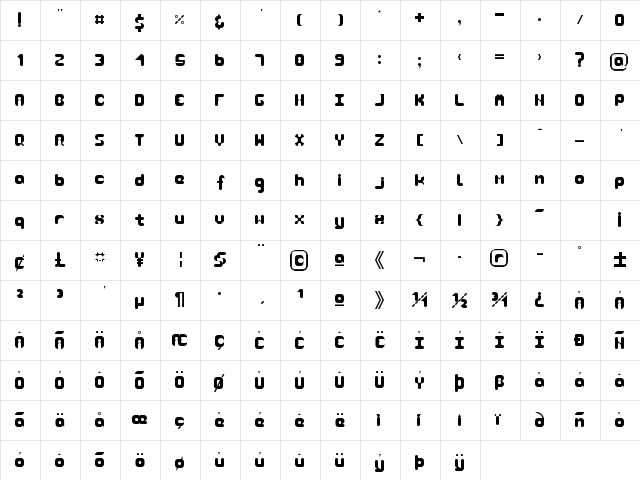
Kandryve Regular
Design Context for Kandryve Typeface
Kandryve offers clean, dependable letterforms without strong stylistic allegiance, making it a practical choice for designers who need flexibility.